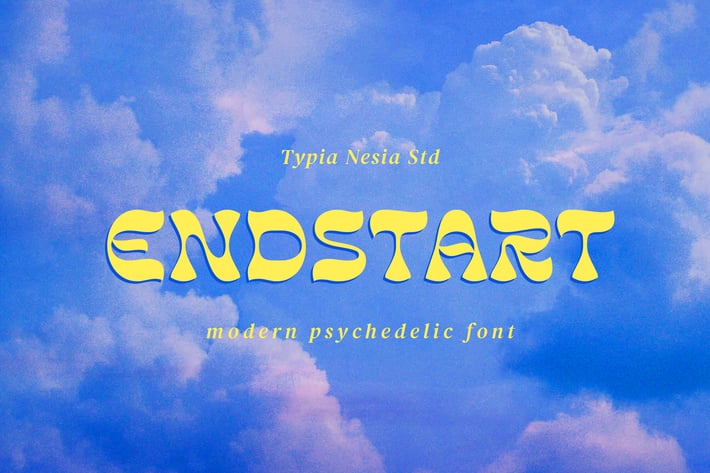
Endstart - Modern Psychedelic Display Serif Font
Endstart - Modern Retro Psychedelic Display Serif Font - Bold Expressive Brutalist / Pop Art Font
Suitable for any design needs : logo, branding, modern advertising design, vintage retro design, psychedelic design, adventure / mountain hiking brand, music poster, animation or movie, logos, retro summer poster quote, book / novel cover Title, movie animation, editorial design, website / blog, card, and more.